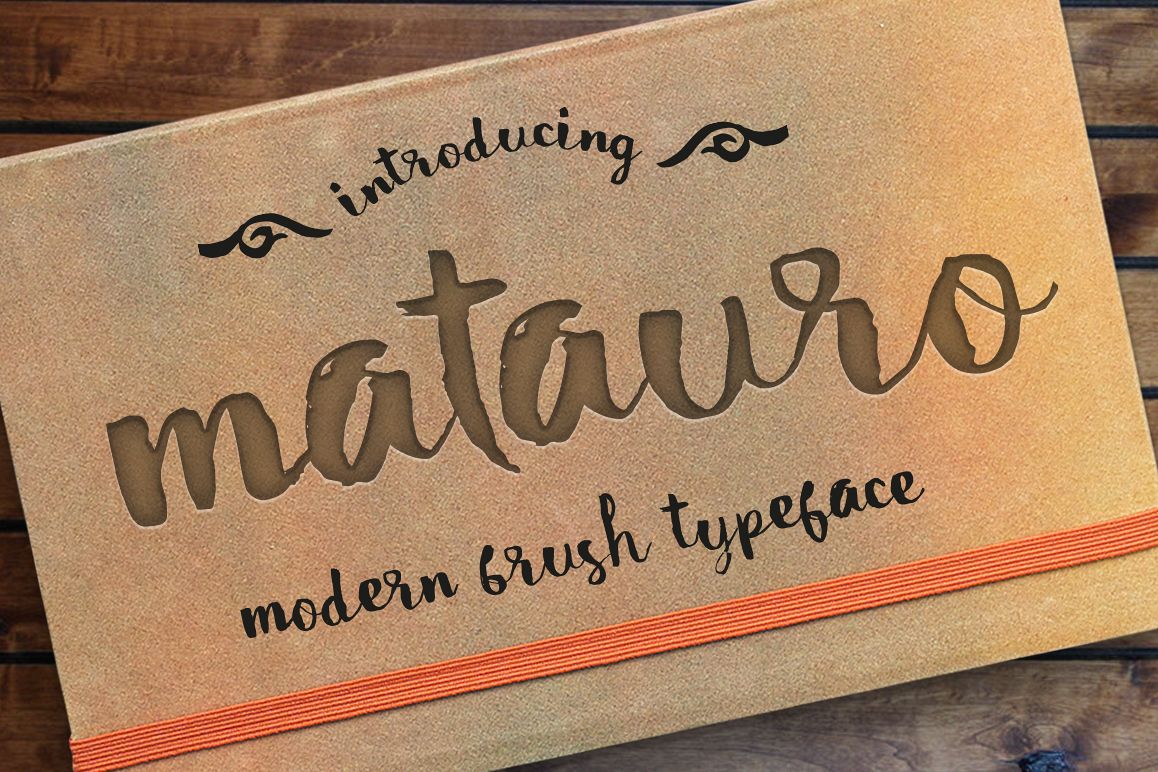
Matauro
Yoooo. Please introduce Matauro, introduce the sun. Matauro is "sun" taken from acehnese word, part of Indonesia. Matauro is kind of typeface that look energic, free, imperfect, and really cool. its suit for any kind of your creative typography, and there are a lot of free graphic ornament in vector. its for you.